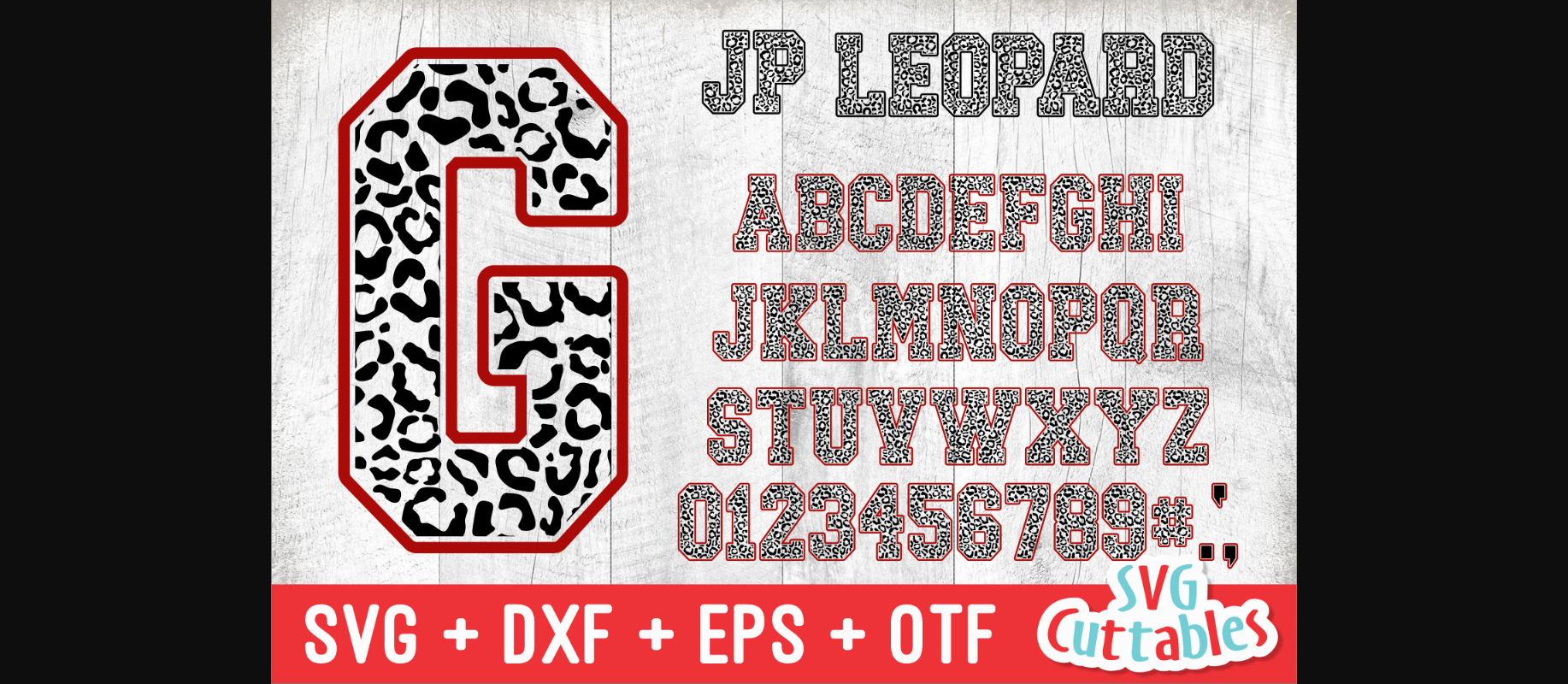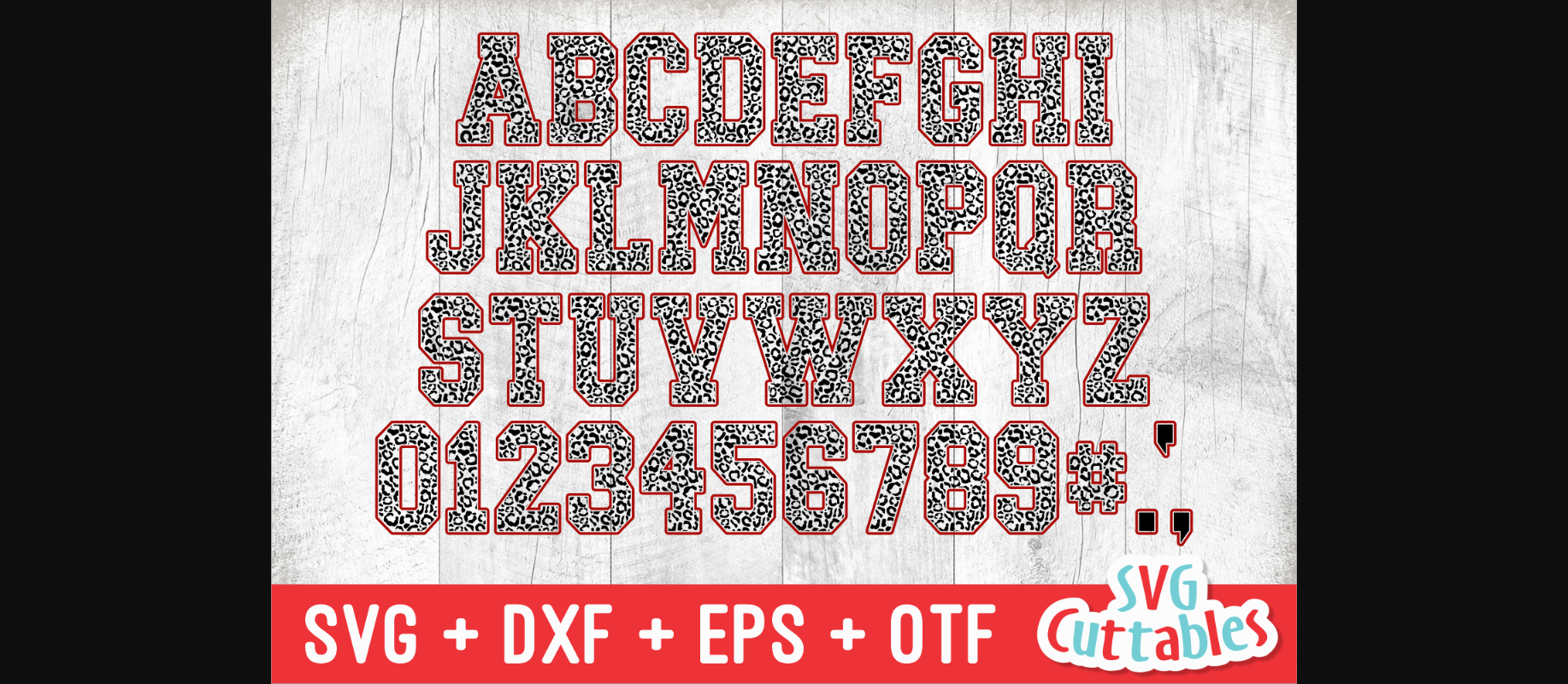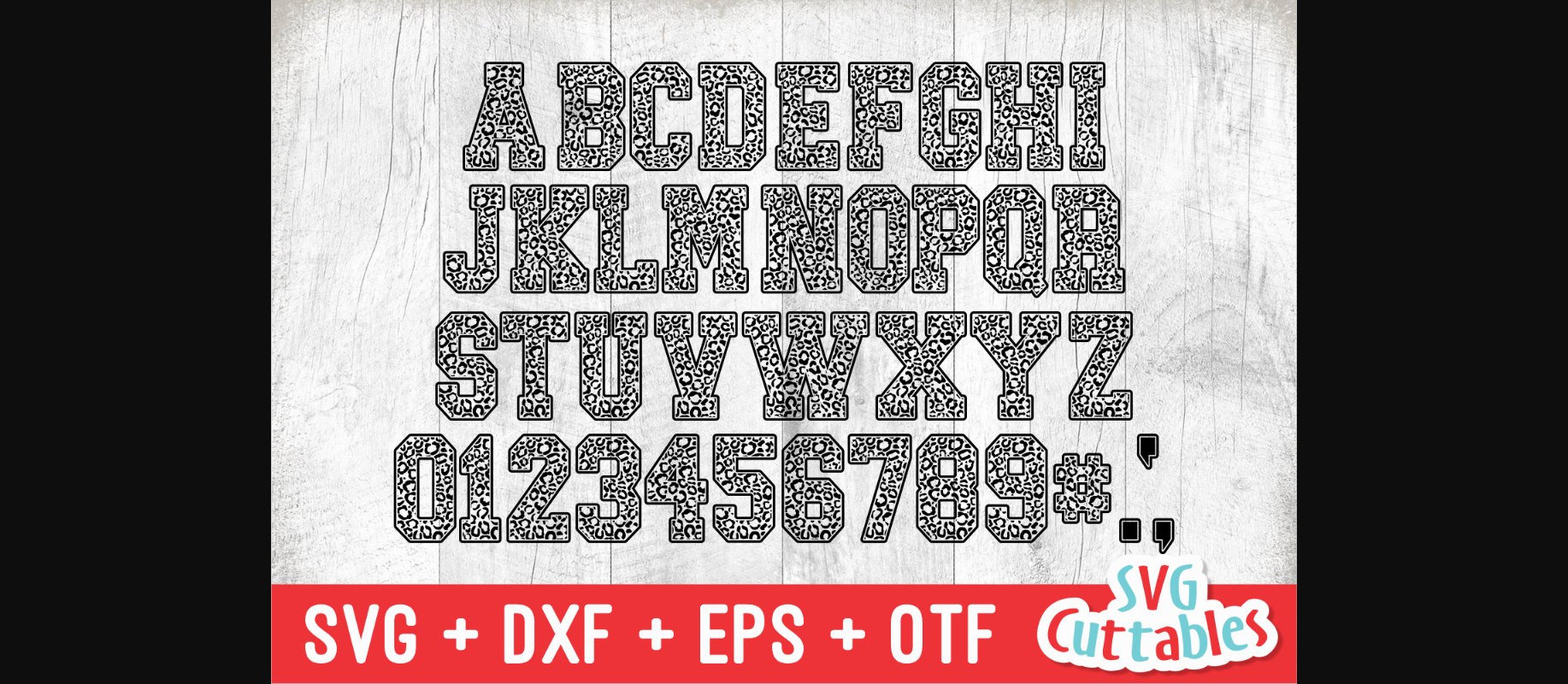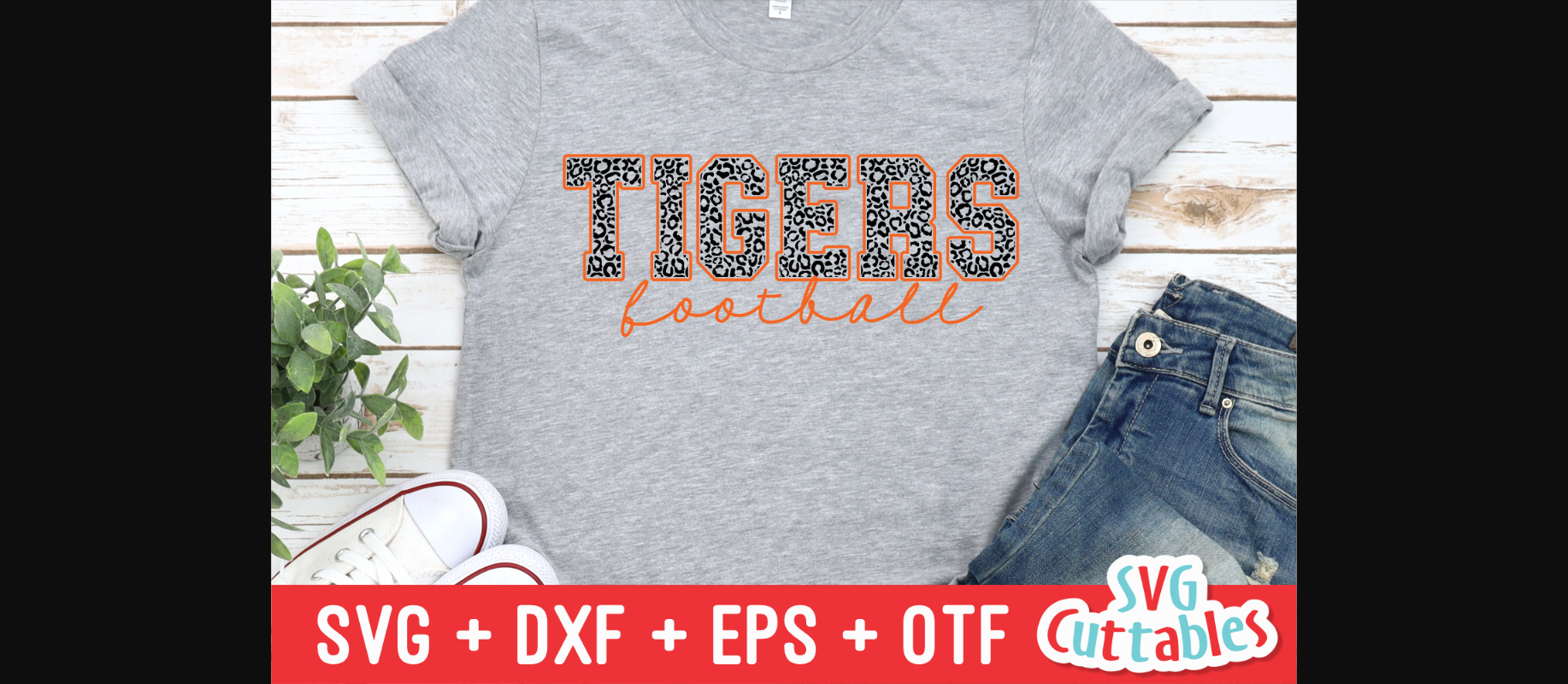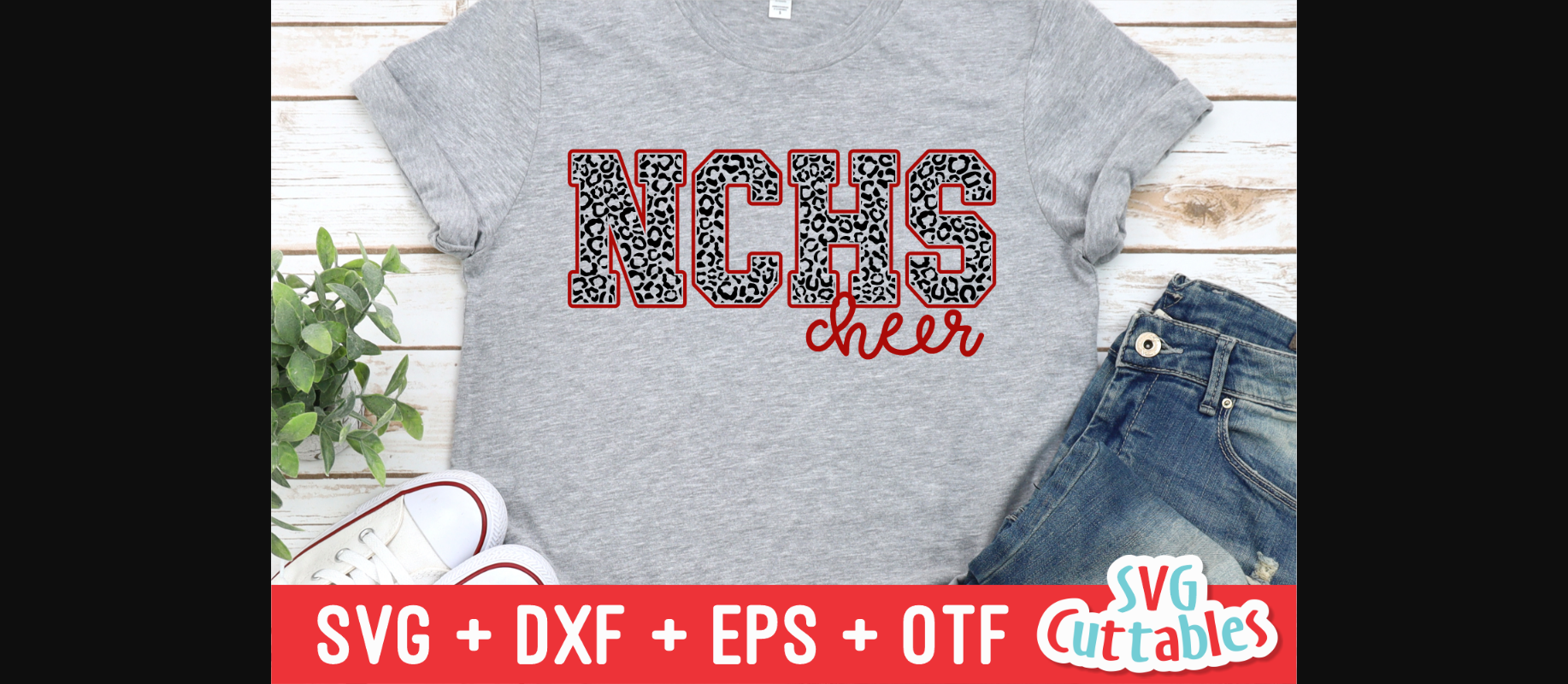
About JP Leopard Font
JP Leopard is a cool and uniquely designed decorative font. it looks fun and creative on a variety of design ideas, so add it confidently to your creations and amaze your readers.